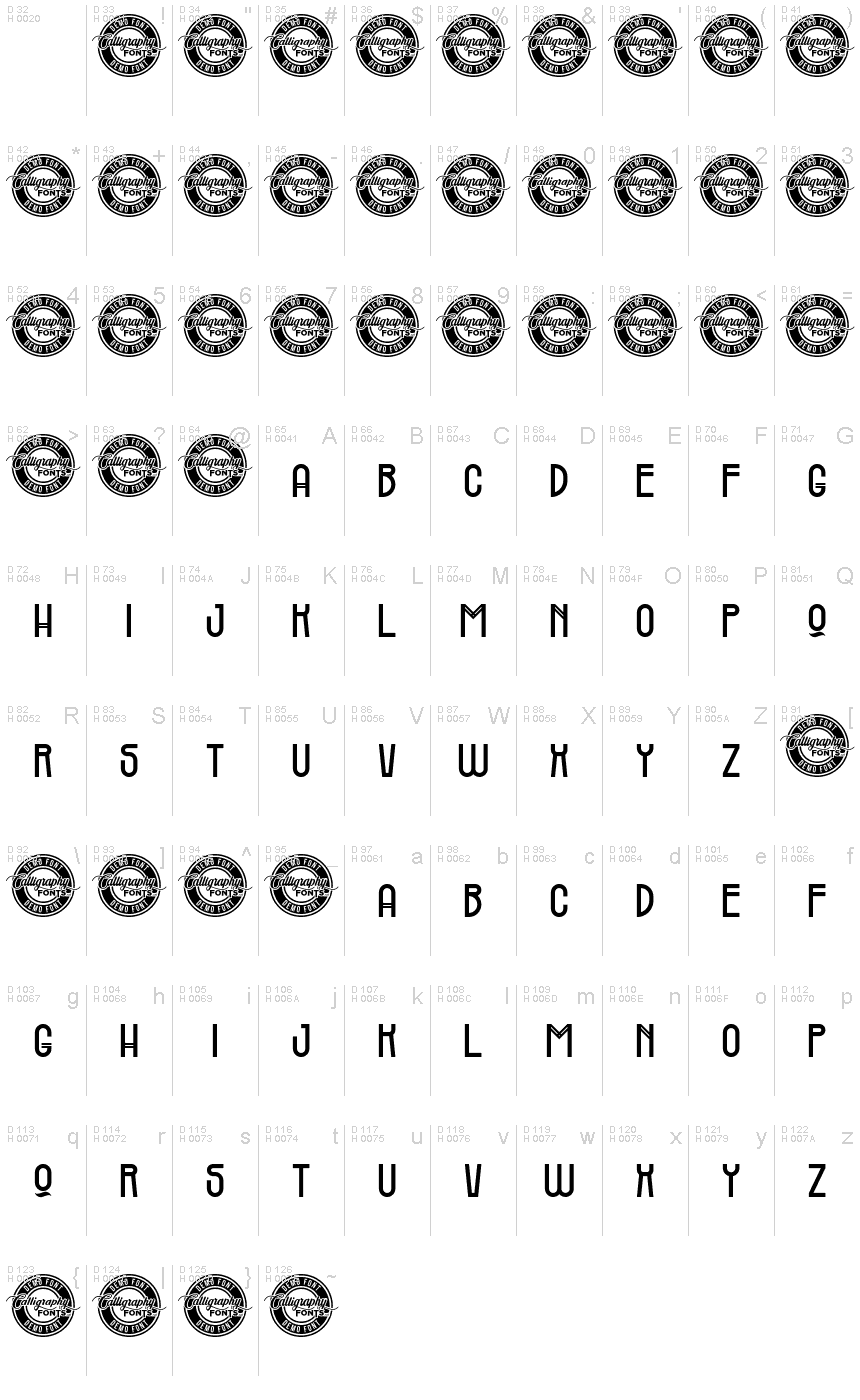
Federal Right Demo
Federal Right by Calligraphy Fonts is a semi-light, condensed display font that exudes retro vibes. Its sharp and angular letterforms give it a distinct character, making it perfect for designs that require boldness and impact. The condensed width also makes it an ideal choice for projects that require fitting in more text into limited space, such as posters, flyers, or book covers. Use Federal Right to add a touch of vintage flair to your branding materials or to create eye-catching headlines for your website or social media posts. This versatile typeface will surely make your design stand out from the crowd!